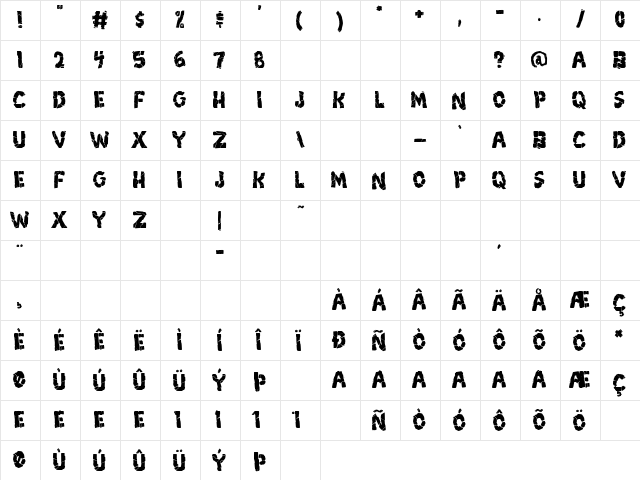
Breakdown PG Regular Free Font
Breakdown PG Regular
Design Context for Breakdown PG
Breakdown PG is a composed and adaptable typeface that performs quietly and consistently across a wide range of design contexts.
Pro Tip: Use Breakdown PG in both headline and body roles to test its range before committing to a single application.